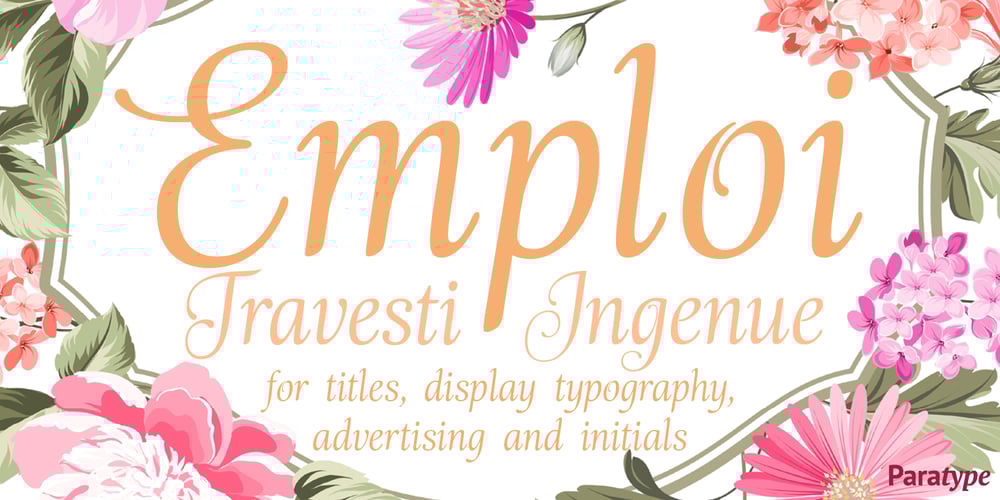
Emploi Font Family was designed by Natalia Vasilyeva and published by ParaType. Emploi contains 2 styles and family package options. The type family includes two decorative designs that combine features of an italic typefaces and calligraphy. The elegant swashes and curls in upper case letters make the fonts rich and showy. Emploi Ingenue has rather developed decorative elements, and Emploi Travesti is more modest. Both fonts are intended for titles, display typography, especially advertising and for initials.